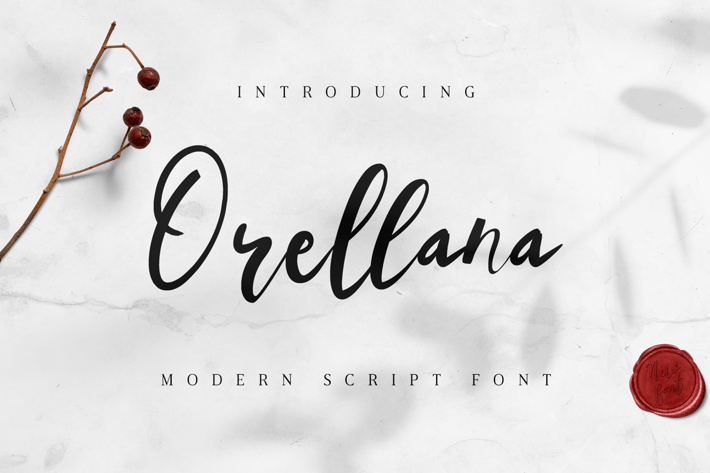
Orellana Modern Script Font
Orellana Modern Script font, is our new font based on nature, and suitable for mockup or any work.
Great for
Sticker, Invitation Card, Brochure, etc.
Great for
Sticker, Invitation Card, Brochure, etc.